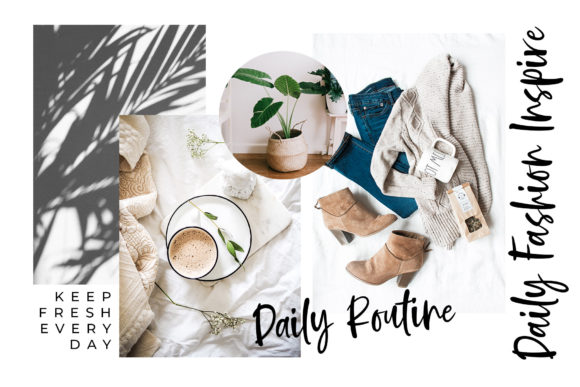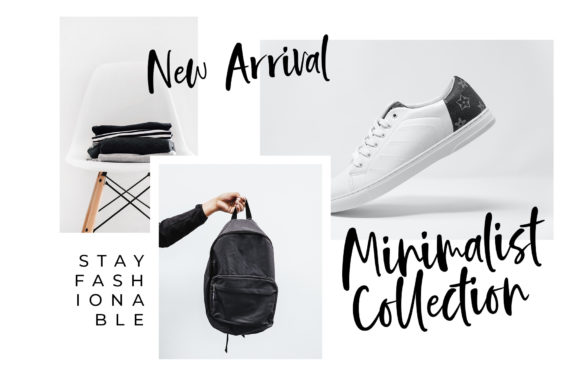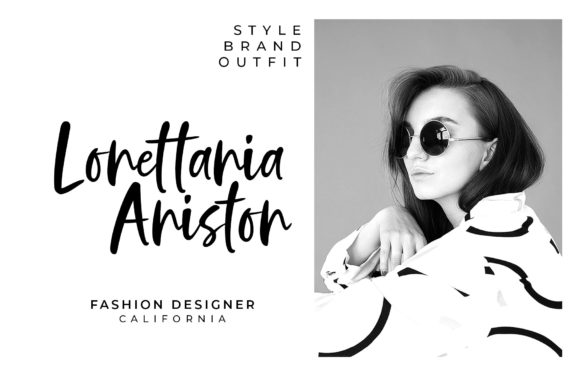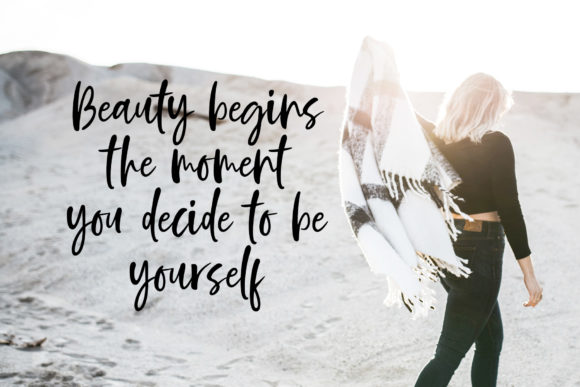
Introducing Galvetina Font: The Sweet and Friendly Handwritten Font for Your Creative Projects
Are you a designer, crafter, or DIY enthusiast looking for a font that can add a personal touch to your projects? Look no further than Galvetina Font, a sweet and friendly handwritten font that’s perfect for a wide range of designs. With its natural and unique style, Galvetina Font is incredibly versatile and can be used in various creative projects, from digital designs to handmade crafts.
The Characteristics of Galvetina Font
Galvetina Font is a handwritten font that exudes warmth and friendliness. Its natural and unique style makes it stand out from other fonts, and its sweet and approachable feel makes it perfect for designs that require a personal touch. The font’s characteristics include:
- Handwritten style: Galvetina Font is a handwritten font that mimics the natural flow of handwriting, making it look like it was written with a pen or pencil.
- Sweet and friendly feel: The font has a warm and approachable feel that’s perfect for designs that require a personal touch.
- Unique style: Galvetina Font has a unique style that’s unlike other fonts, making it perfect for designers who want to stand out from the crowd.
- Natural flow: The font has a natural flow that’s easy to read and understand, making it perfect for body text and headings.
The Versatility of Galvetina Font
One of the best things about Galvetina Font is its versatility. The font can be used in a wide range of designs, from digital designs to handmade crafts. Here are some ideas for using Galvetina Font:
- Digital designs: Use Galvetina Font in digital designs such as social media graphics, blog posts, and website headers.
- Handmade crafts: Use Galvetina Font in handmade crafts such as card making, scrapbooking, and journaling.
- Sign making: Use Galvetina Font to create signs for events, parties, and businesses.
- Stationery: Use Galvetina Font to create custom stationery, including letterheads, envelopes, and notecards.
Tips for Using Galvetina Font
Here are some tips for using Galvetina Font in your designs:
- Pair with other fonts: Pair Galvetina Font with other fonts to create a unique and interesting contrast.
- Use in combination with images: Use Galvetina Font in combination with images to create a visually appealing design.
- Experiment with colors: Experiment with different colors to find the perfect combination that works with your design.
- Keep it simple: Keep your design simple and clean to let Galvetina Font shine.
Galvetina Font is a sweet and friendly handwritten font that’s perfect for designers, crafters, and DIY enthusiasts. Its natural and unique style makes it incredibly versatile and can be used in a wide range of designs. With its warm and approachable feel, Galvetina Font is sure to add a personal touch to your projects. So why wait? Download Galvetina Font today and let your imagination run wild!
The only limit to what you can create with Galvetina Font is your imagination. So don’t be afraid to experiment and try new things. With Galvetina Font, the possibilities are endless!